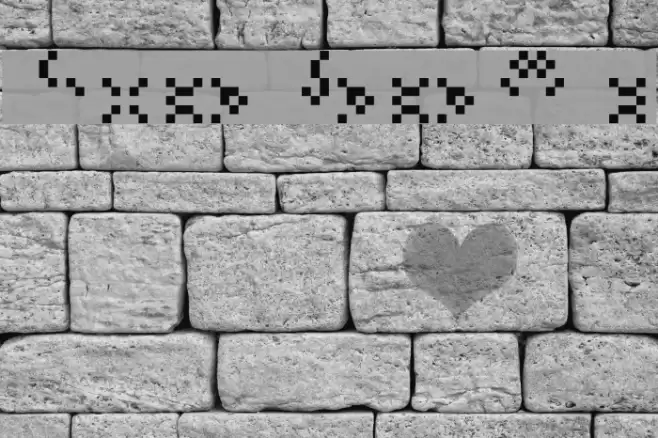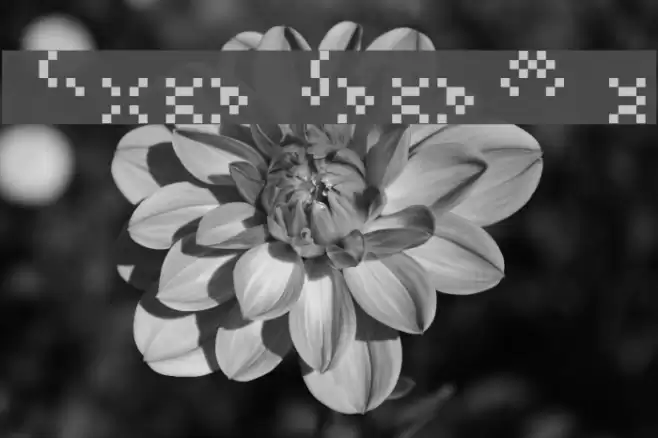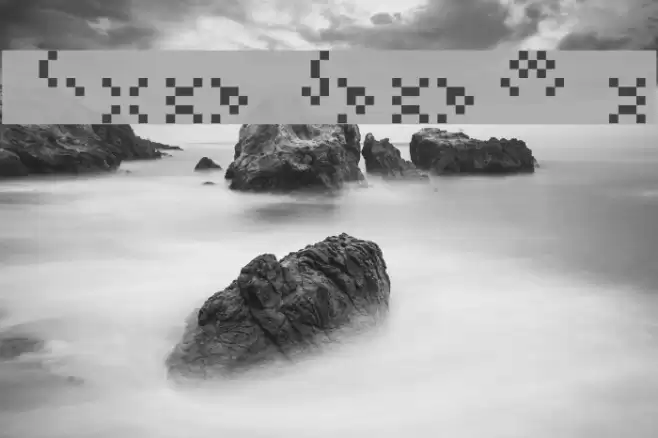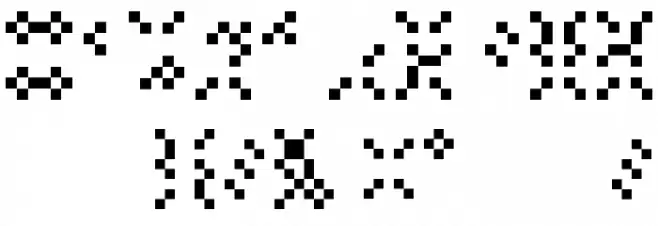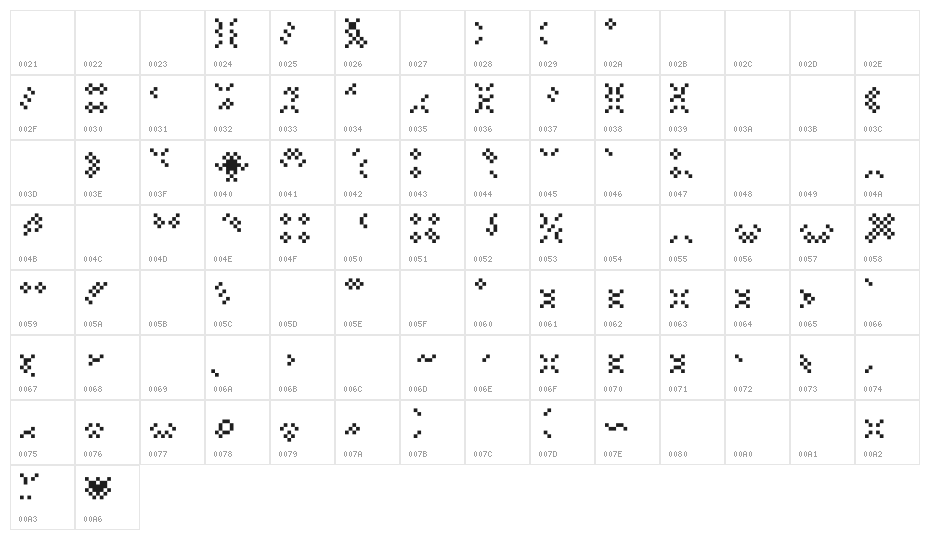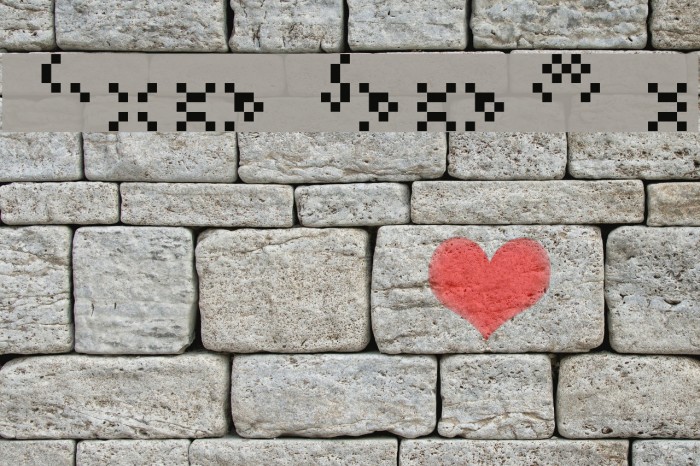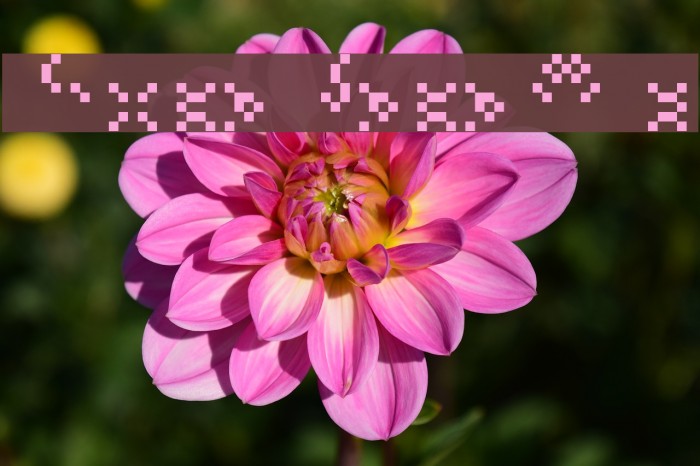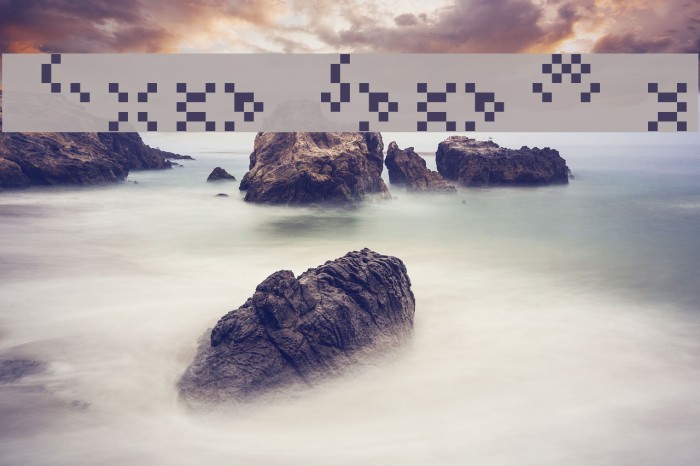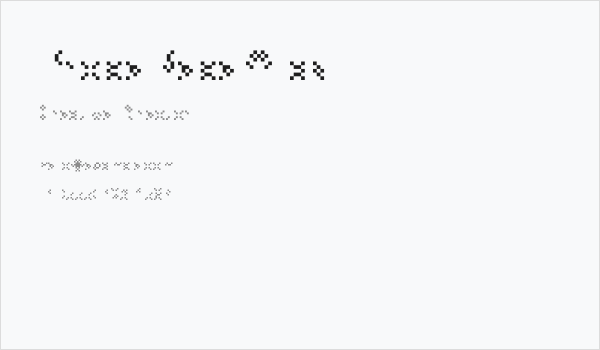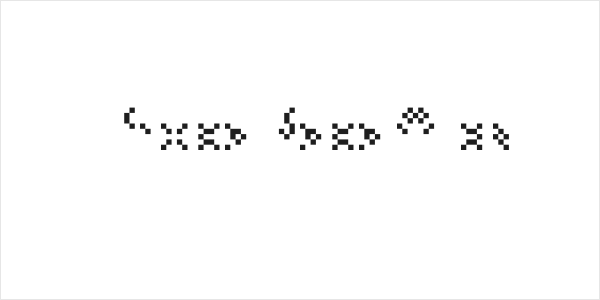
PropelRepelAlias Font
PropelRepelAlias Description
This font is a pixelated, dot-matrix style that mimics the appearance of early digital displays or printouts. Each character is composed of a grid of dots, creating a retro, tech-inspired aesthetic. The uniformity in dot size and spacing gives it a consistent and structured look, reminiscent of old computer screens or LED displays. The characters are easily distinguishable, despite their simplistic construction, making it suitable for digital or retro-themed projects. The font's nostalgic charm is ideal for designs that aim to evoke a sense of vintage technology or digital minimalism.
A pixelated, dot-matrix style font with a retro digital aesthetic from Uncategorized fonts.
- Proposed Projects: Ideal for retro-themed designs, digital art projects, video game graphics, or any project that requires a vintage tech feel.
- Overall Style: Vintage
- Use Case: Logos, Headlines, Digital displays